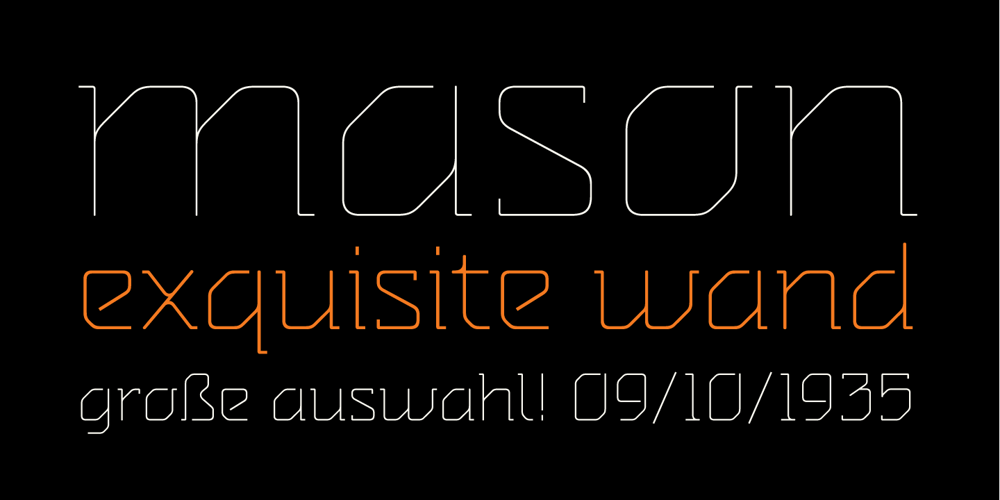
MM Agrafa Font Family was designed by Mugur Mihai and published by MM Fonts. MM Agrafa contains 7 styles and family package options. A paper-clip-inspired typeface with character. Agrafa is a technical but versatile display face that works well in both large and small sizes. Most of the glyphs are made from one continuous line and shows the constraints of bending a paperclip/wire. The family consist of four weights, Hairline, Thin, Light and Book, last three also comes with an oblique companion. While Hairline works best for setting large headlines/words, the Book weight can be used even for small size texts.